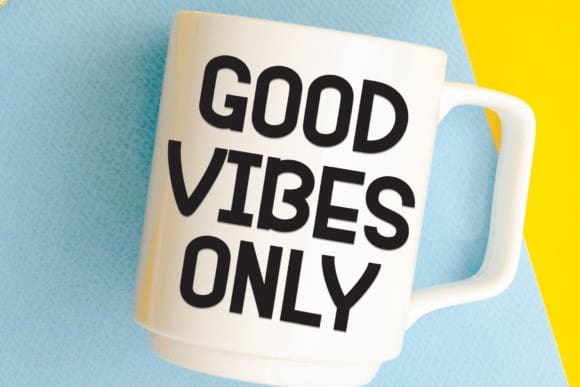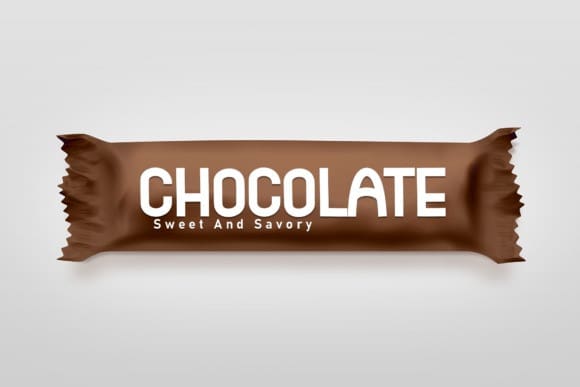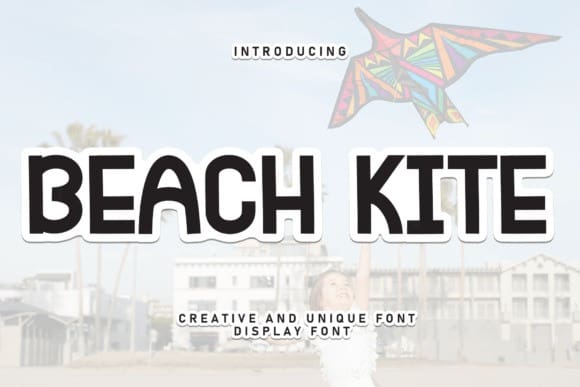
Beach Kite Font
Beach Kite Font is a sweet and friendly handwritten display font. Cute and fun, this font is ideal for writing wedding invitations, cards, or any other design that might need a fun touch!